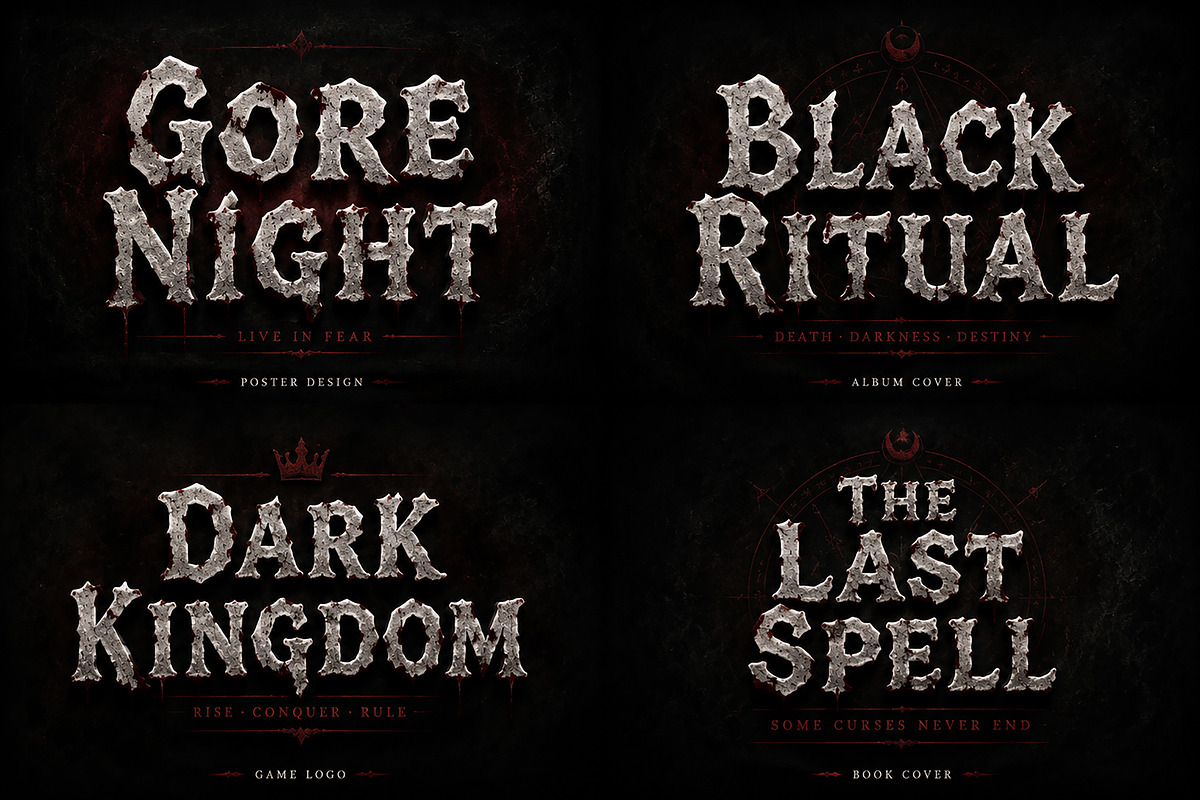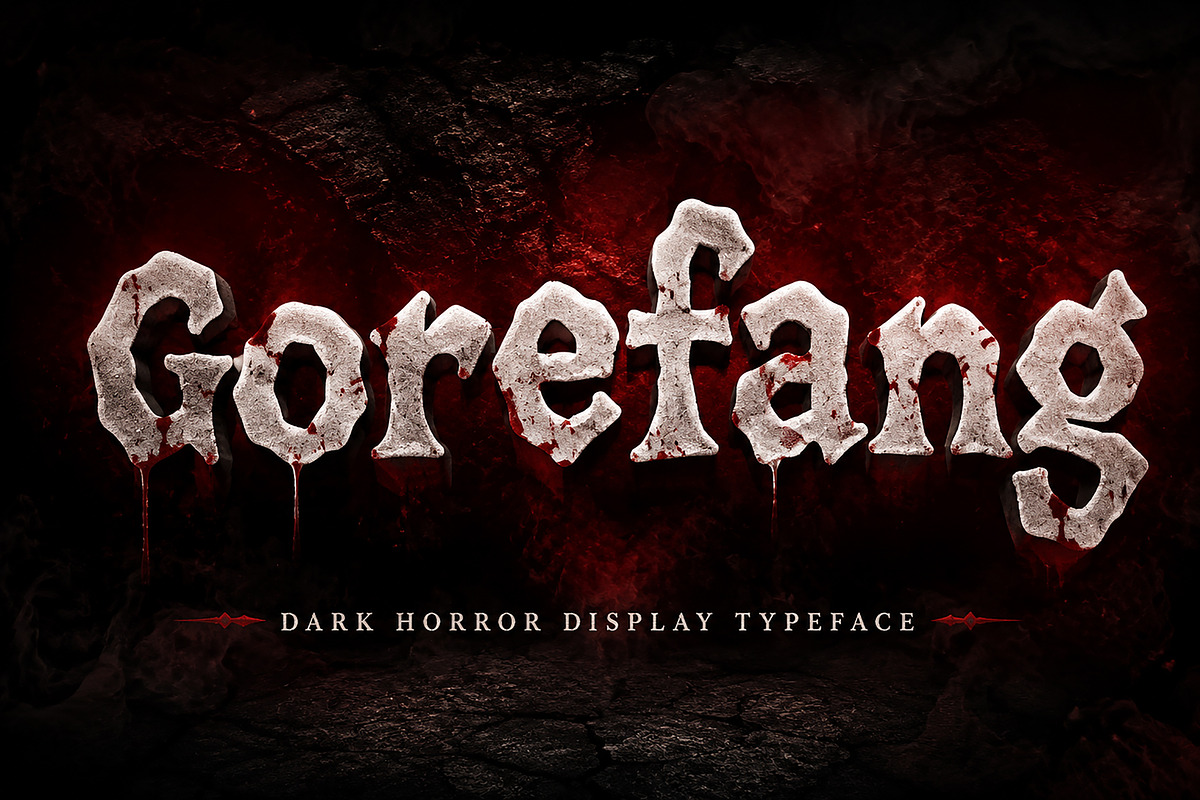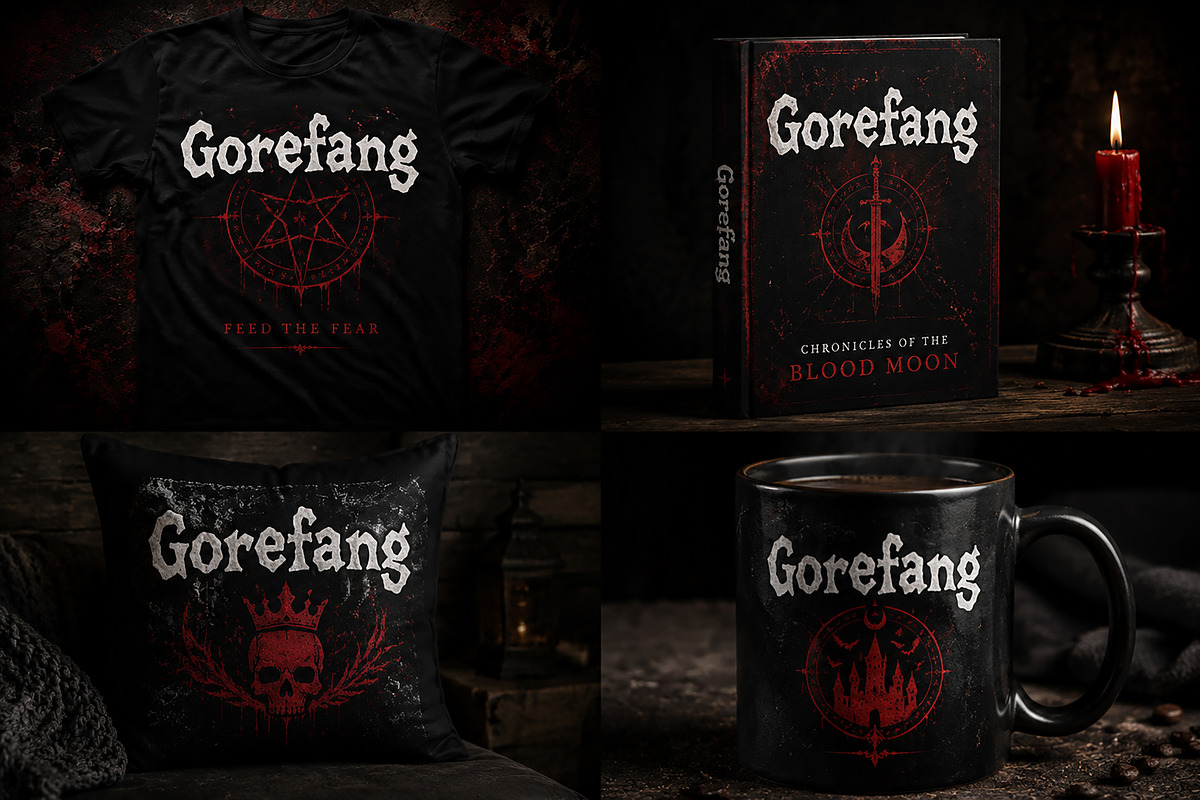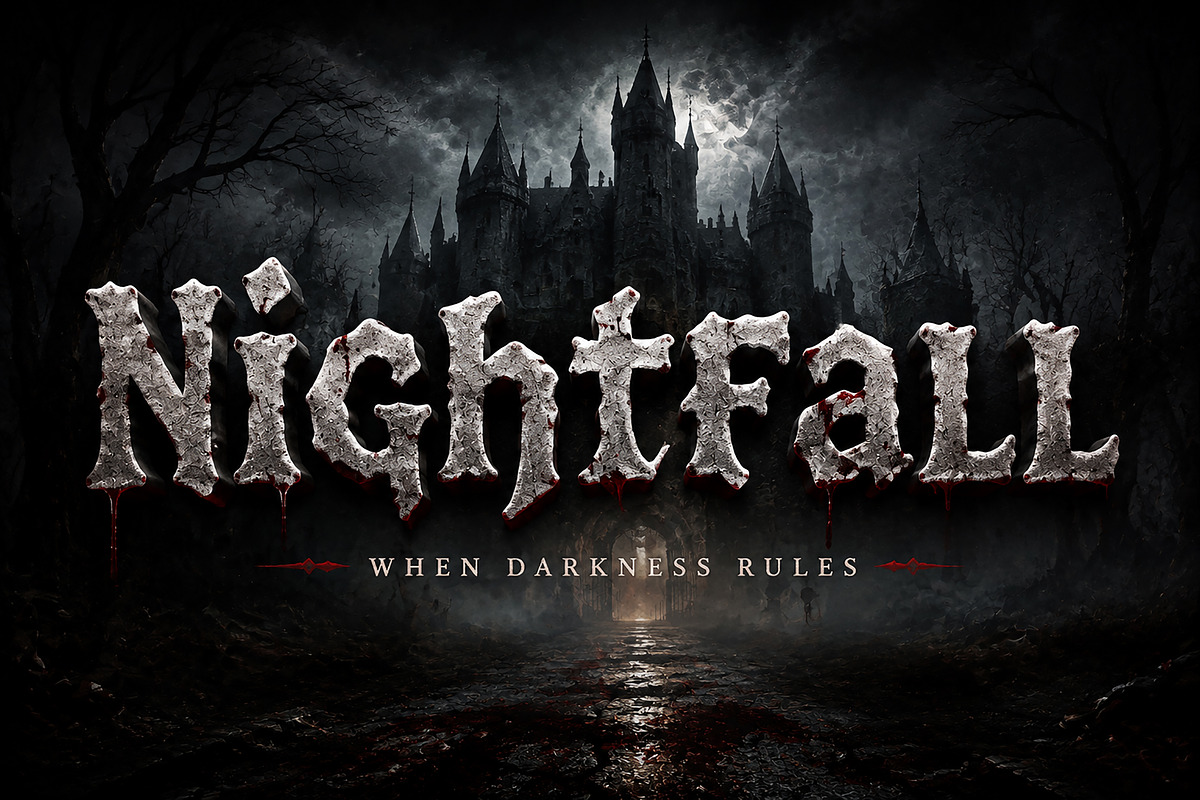
Gorefang
Gorefang – Dark Horror Display Typeface
Unleash a dark and powerful atmosphere with Gorefang, a brutal horror-inspired display typeface crafted for projects that demand a bold and unforgettable presence.
Featuring a rugged, organic, and distressed style, Gorefang brings a sinister medieval and gothic feeling to your designs. Its sharp edges, raw texture, and mysterious character make it perfect for horror themes, metal artwork, fantasy branding, game titles, movie posters, book covers, album artwork, and dark-themed creative projects.
Designed to capture the feeling of ancient curses, dark kingdoms, and forgotten legends, Gorefang helps designers create striking visuals with a cinematic horror aesthetic.
Horror Movie Titles
Halloween Designs
Metal Band Logos
Album Covers
Game Logos
Fantasy Branding
Poster Designs
T-Shirt Artwork
Merchandise Design
Dark Theme Branding
✔ Unique Horror Display Style
✔ Gothic & Medieval Inspired Design
✔ Distressed and Organic Letter Shapes
✔ Strong Visual Impact for Headlines
✔ Perfect for Large Display Text
✔ Professional Typeface for Creative Projects
Bring darkness, mystery, and raw energy to your next design project with Gorefang — a typeface created for creators who want their work to stand apart.